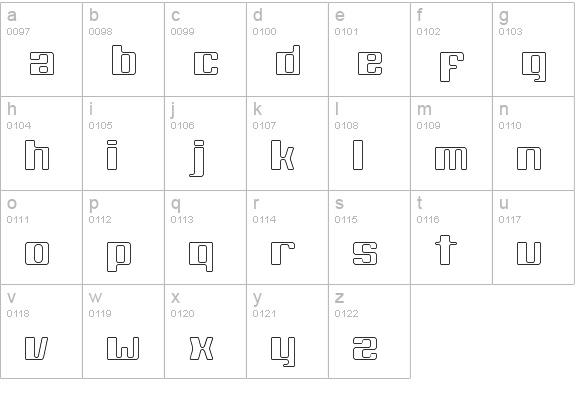
White Wolf font is a stunning display typeface that exudes elegance and sophistication. Its beautifully crafted letterforms are inspired by the grace and strength of a majestic white wolf, making it the perfect choice for projects that require a touch of wild beauty. With its clean lines and smooth curves, White Wolf font captures attention and brings a sense of modernity to any design. Whether used for logos, headlines, invitations, or branding materials, this font's versatility knows no bounds. Its timeless appeal makes it suitable for both classic and contemporary designs, ensuring that it will remain a go-to choice for designers and creatives alike. What sets White Wolf font apart is not just its impeccable design, but also its accessibility. It is freely available to download at FontsMarket.com, making it a valuable resource for designers on a budget or those looking to add a touch of elegance to their projects without breaking the bank. This font allows everyone to create stunning visuals without compromising on quality. With its wide range of characters and extensive language support, White Wolf font is a reliable choice for multilingual projects. It effortlessly adapts to various design styles and can be paired with both serif and sans-serif fonts to create striking visual contrasts. Its legibility remains intact even at smaller sizes, ensuring that your message is always clear and impactful. The White Wolf font is more than just a typeface; it is a statement of style and sophistication. It is a versatile and freely accessible resource that empowers designers to create beautiful and memorable designs. So why wait? Download White Wolf font today from FontsMarket.com and unleash your creativity with this captivating typeface.